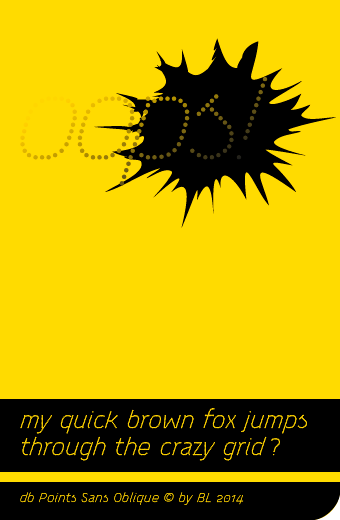
• Clone of db New Points Italic. created 8th December, 2010
Wonderful!
Splendid work. Did the new Modify > Nudge function help you? 10/10
Well, I've only occasionally used it to compensate optically some subtleties (f.e. To refine the slope of the curves).
This really has beautiful consistency. I only have one TINY suggestion, and it's admittedly nitpicking… perhaps look at the width of the k. Could the angle of the leg be less extreme (like x?) or even take a slight turn near the bottom to match the standard "vertical/oblique" angle? All in all, this is really nice work. Thanks for sharing!
Beautiful - and I love the sample :)
you're an endless fountain of wonderfulness. stop
Beautiful work, beate!
Very refined pixel italic!
good
This defines the word "dots" on a whole new level. 10